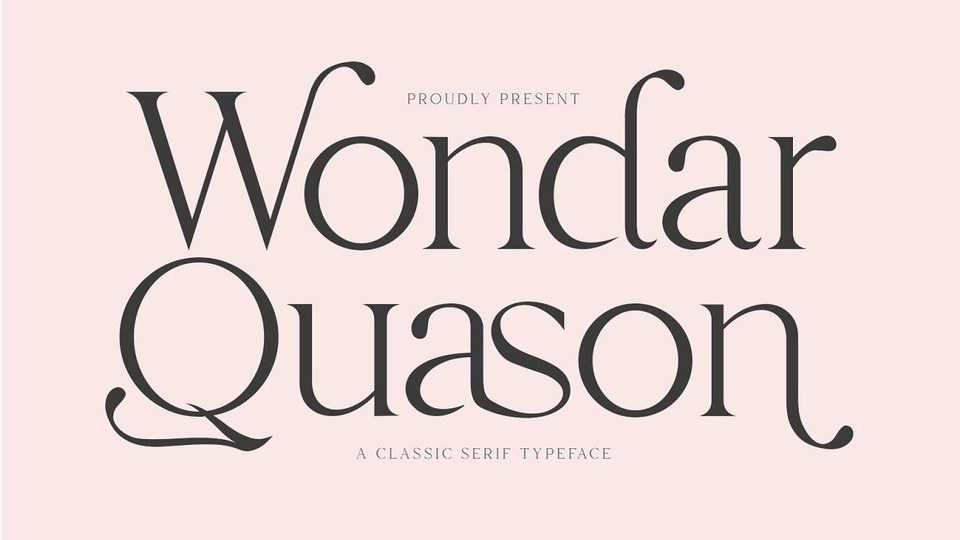
Download Wondar Quason font, a handmade modern Victorian handlettering, which is combining modern and classic typography with some awesome alternates.